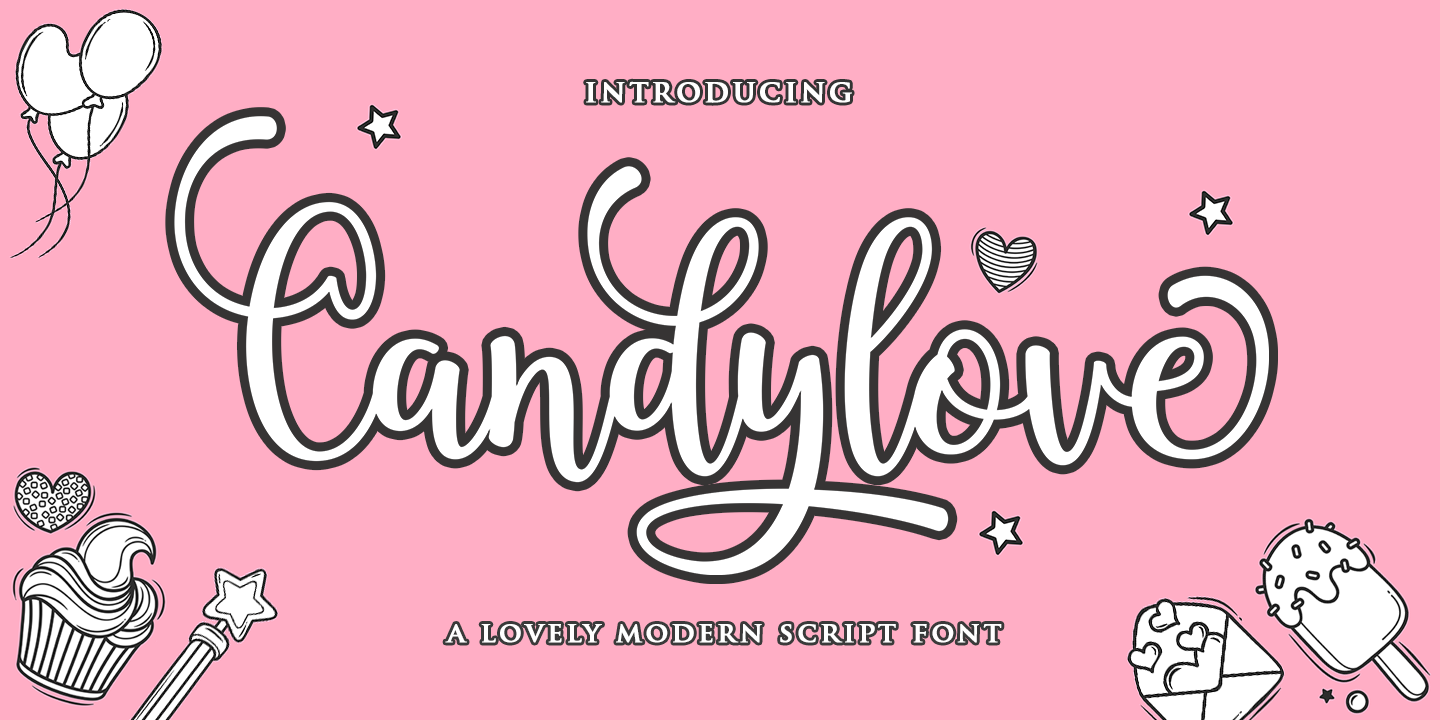
Candylove
Candylove is a script font family published by Attract Studio.
Candylove Script is a lovely script font, including Regular. This font is casual and pretty with swashes. Can used for various purposes. such as logo, product packaging, wedding invitations, branding, headlines, signage, labels, signature, book covers, posters, quotes and more.